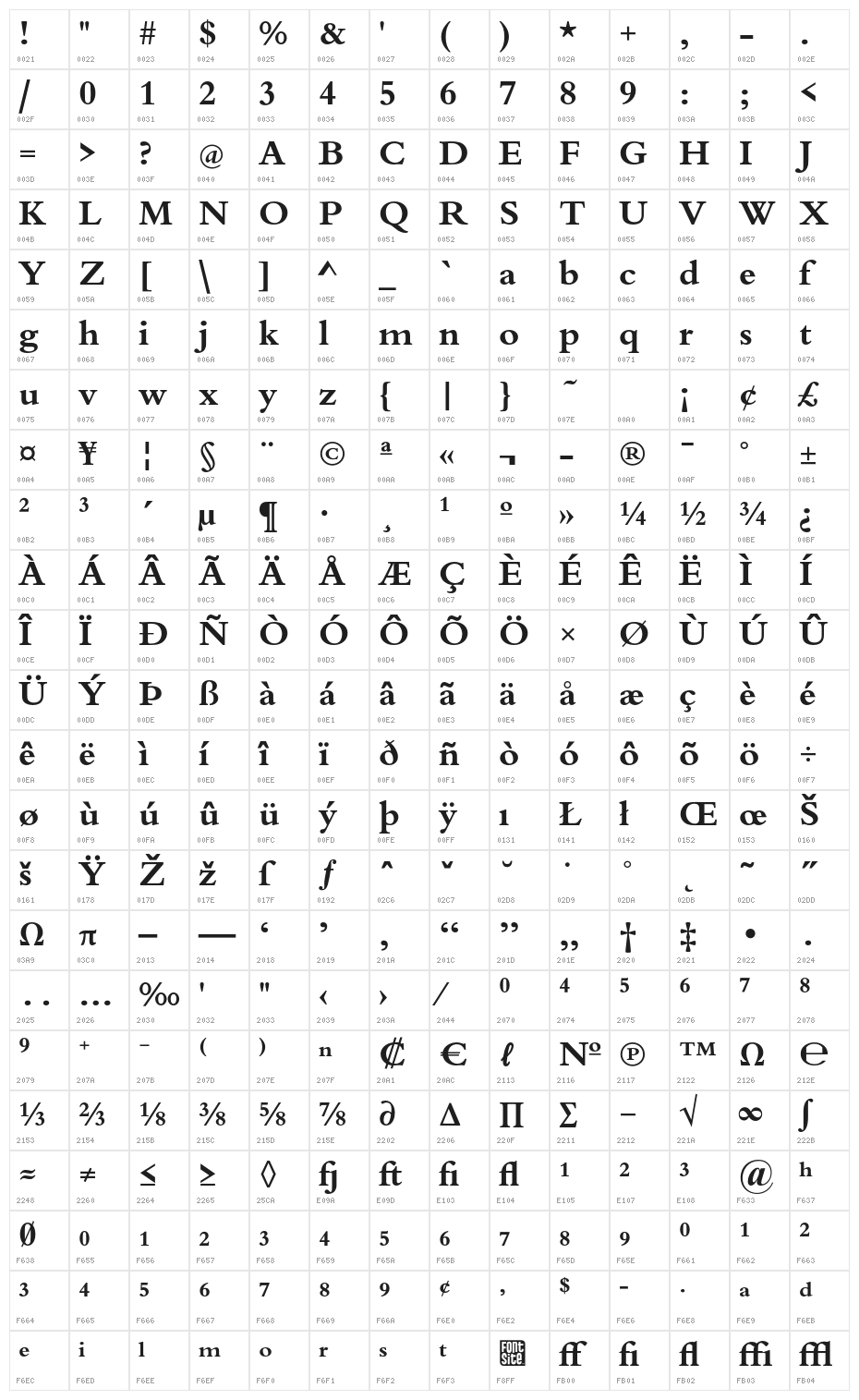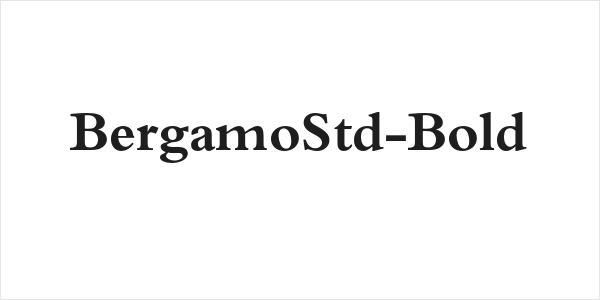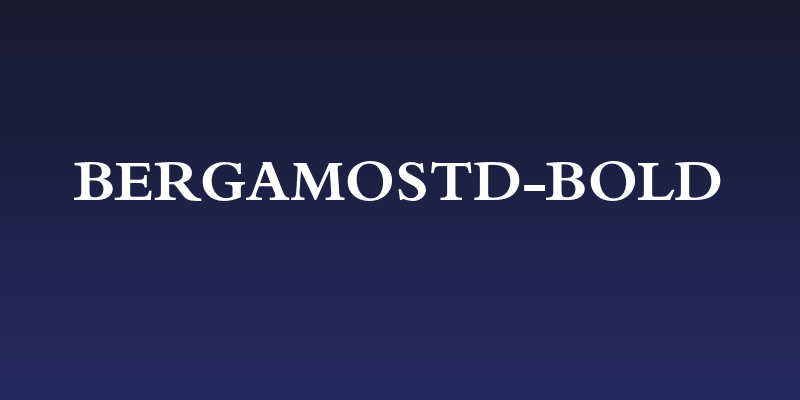
BergamoStd-Bold Font
BergamoStd-Bold Description
This font exhibits a classic serif style with bold, pronounced strokes that convey a sense of tradition and authority. The serifs are well-defined, adding a touch of elegance and readability to the characters. The uppercase letters are strong and commanding, while the lowercase letters maintain a consistent weight, ensuring a harmonious appearance. The numerals are clear and distinct, making them suitable for both text and display purposes. Special characters are crafted with the same attention to detail, providing a cohesive look across all glyphs.
| Proposed Projects | Ideal for editorial design, book covers, formal invitations, and branding projects that require a touch of sophistication. |